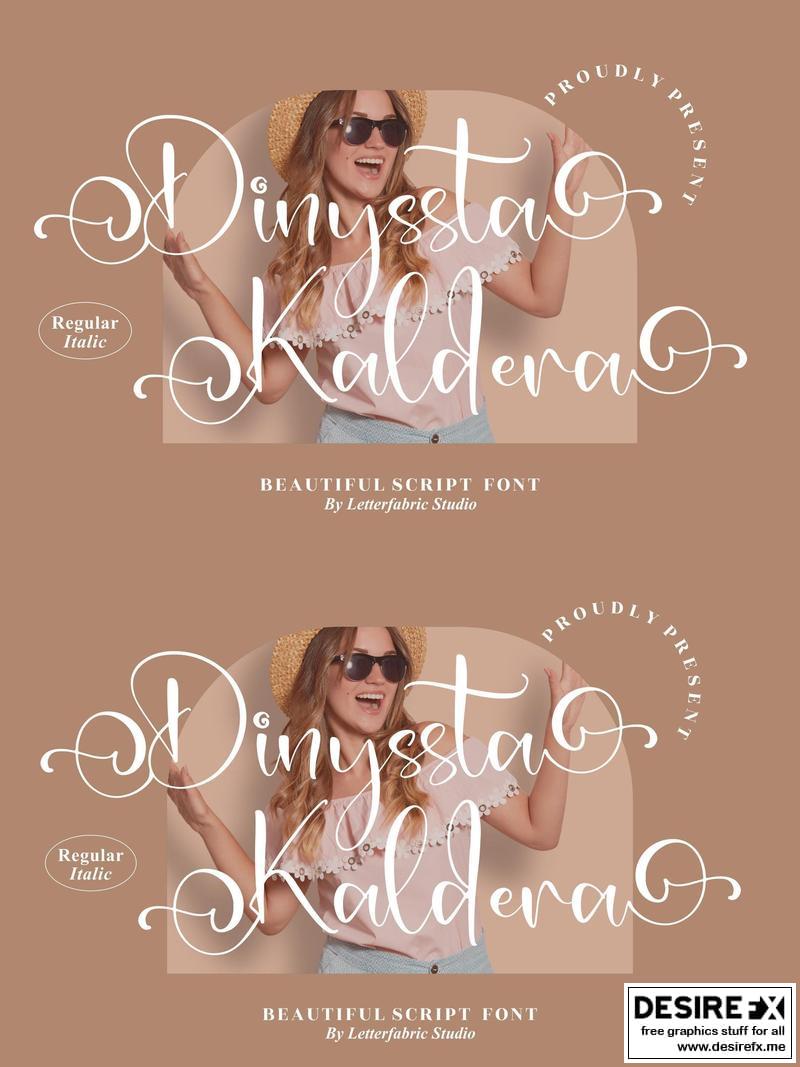
Dinyssta Kaldera Beautiful Script Font LS EBP4E4A
Hi ladies & gentlemen, this is one of our fonts suitable to complement your digital and printed creative products.
This font is perfect for posters, social media posts, branding, personal projects, etc.